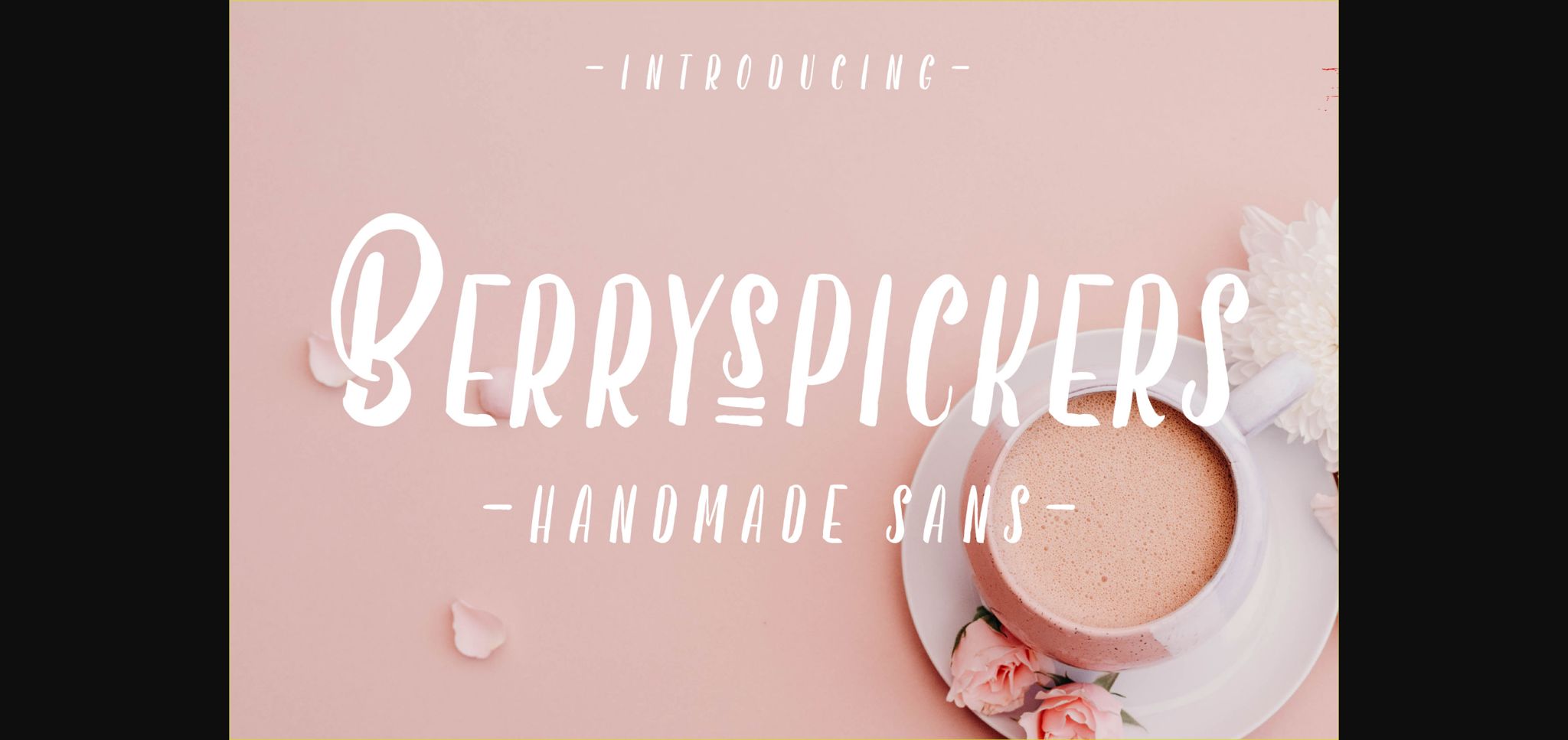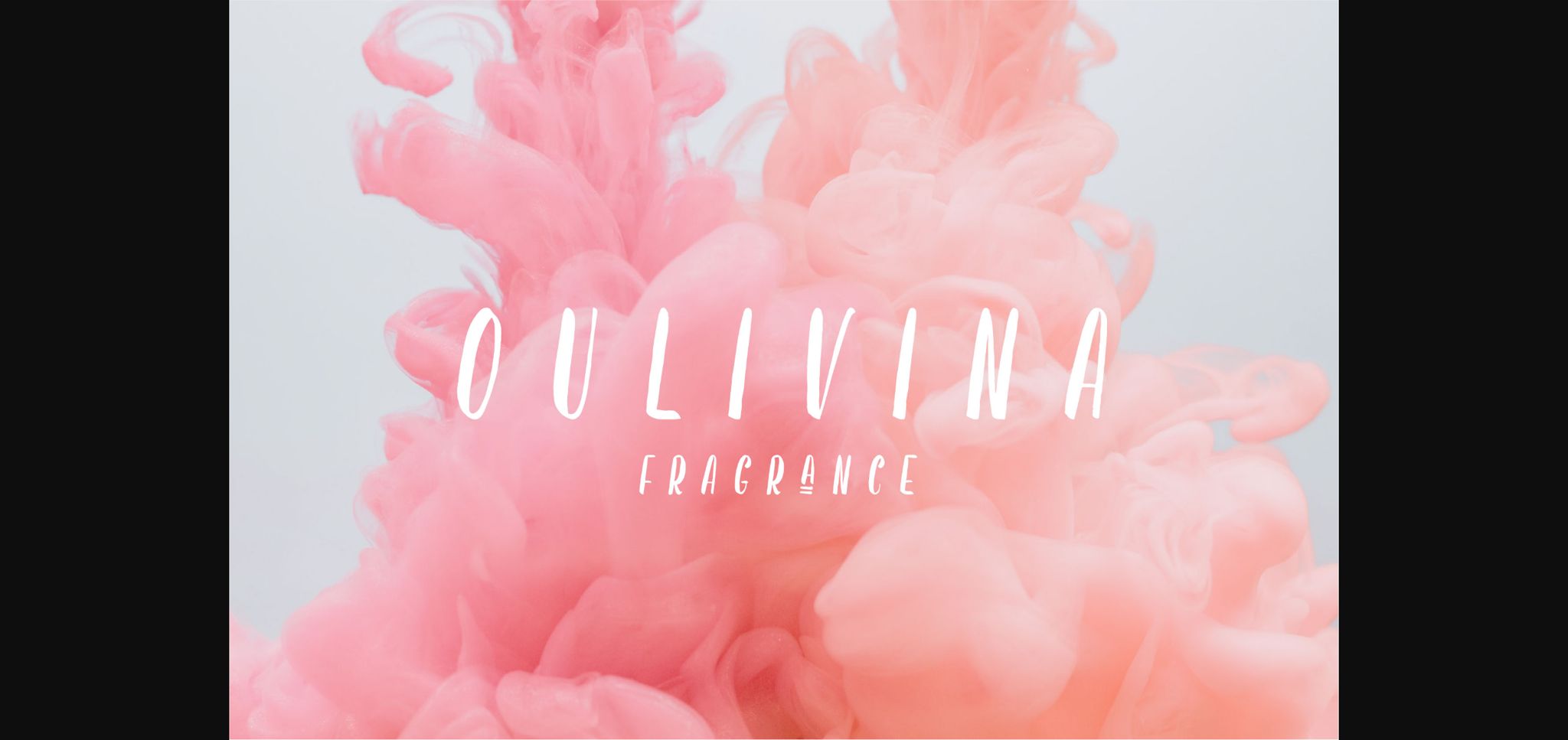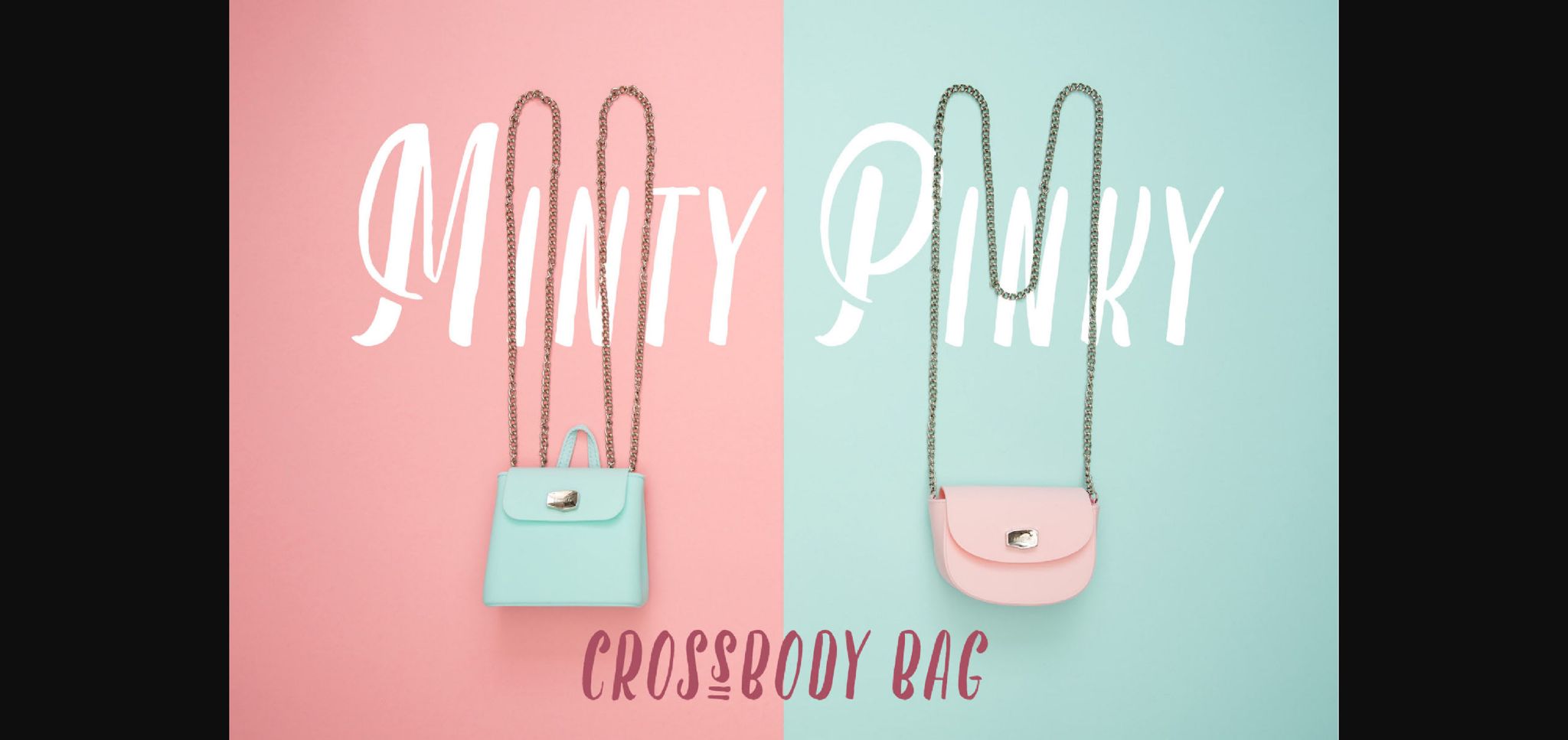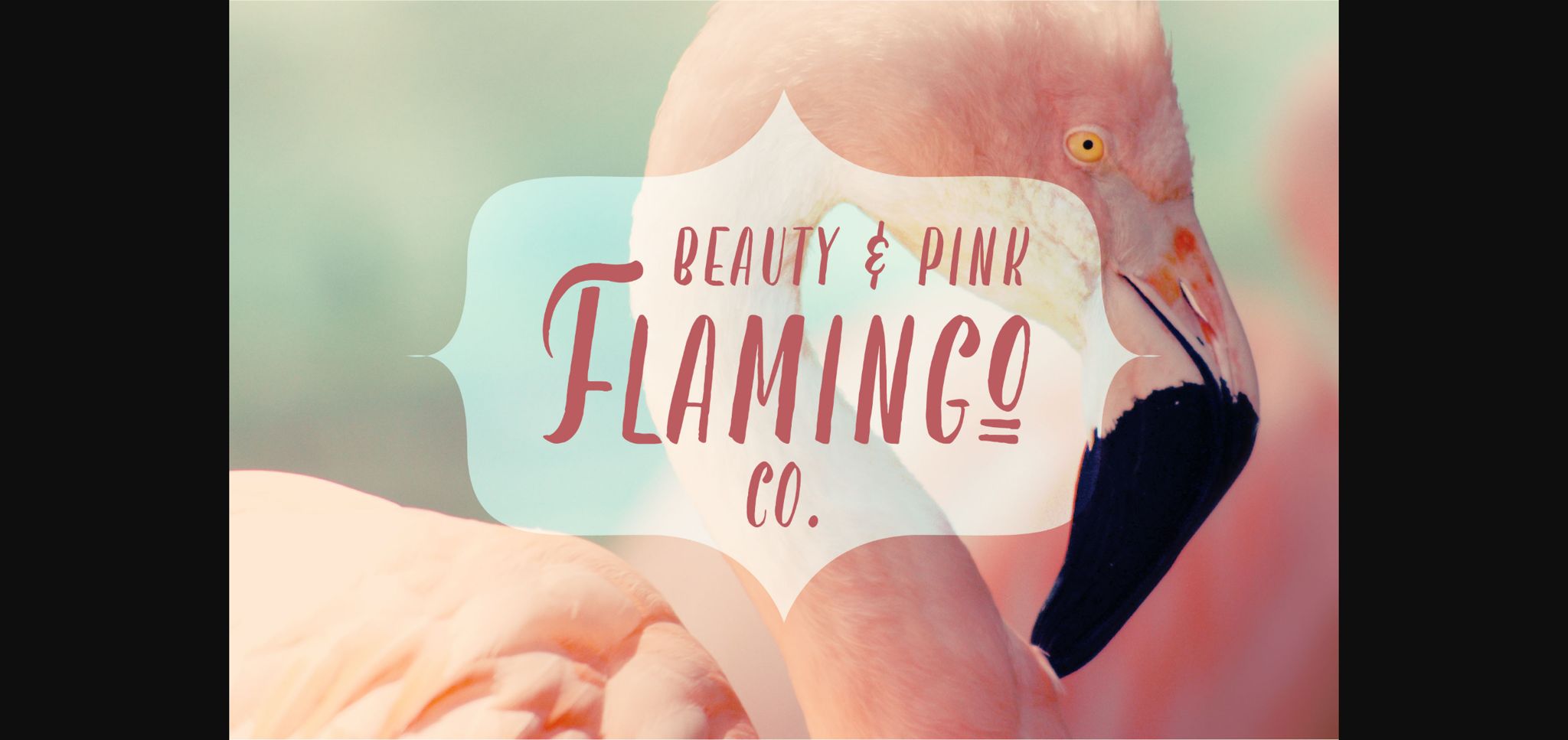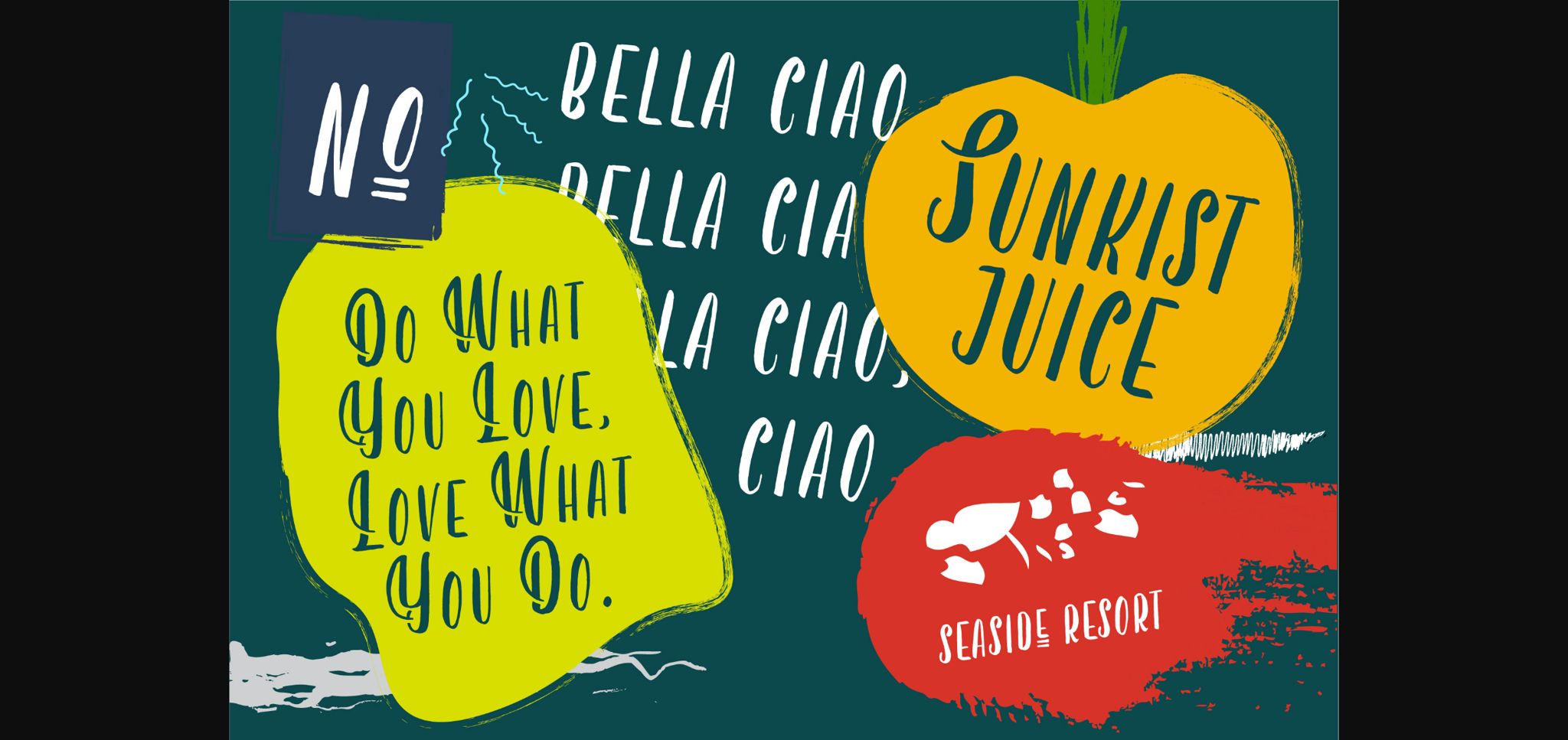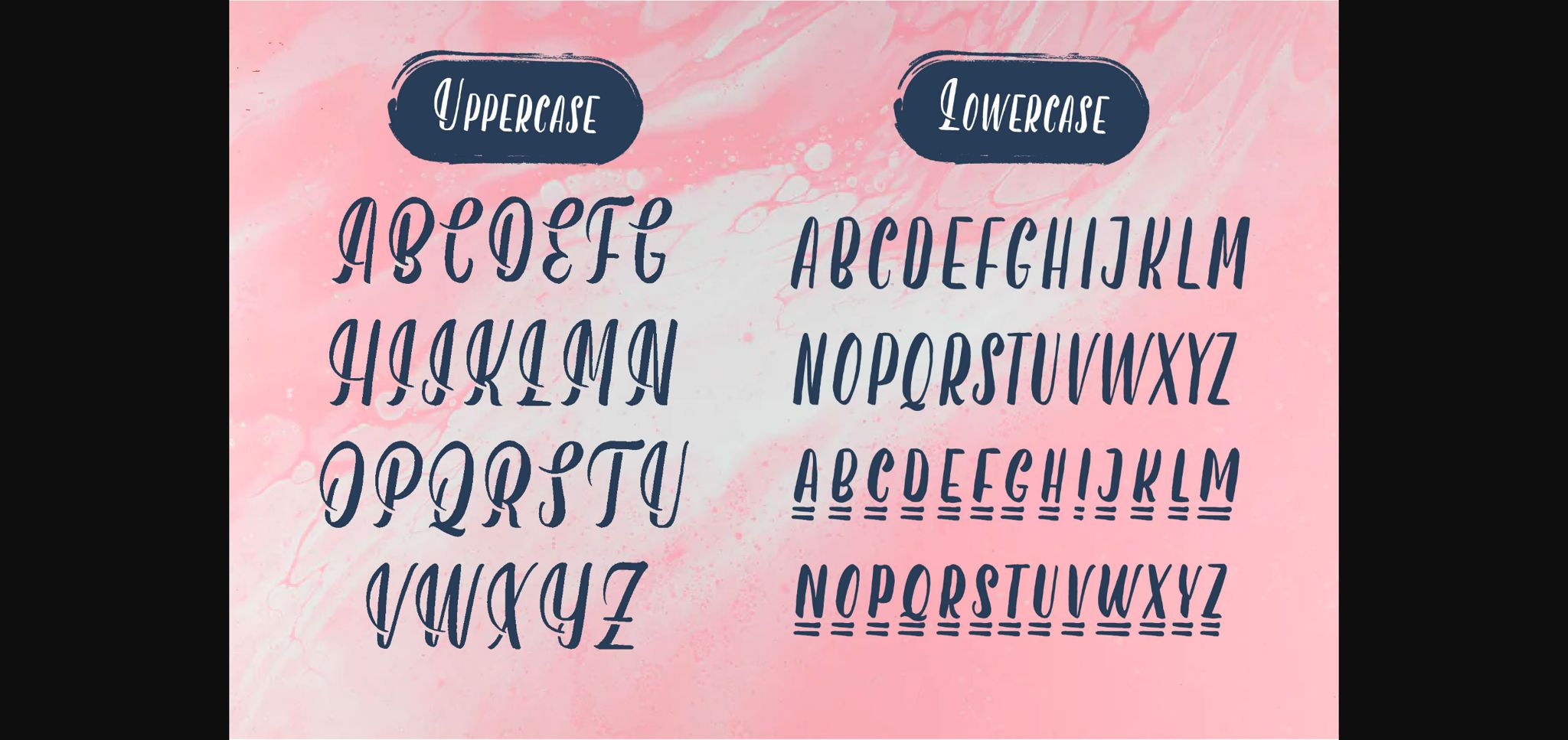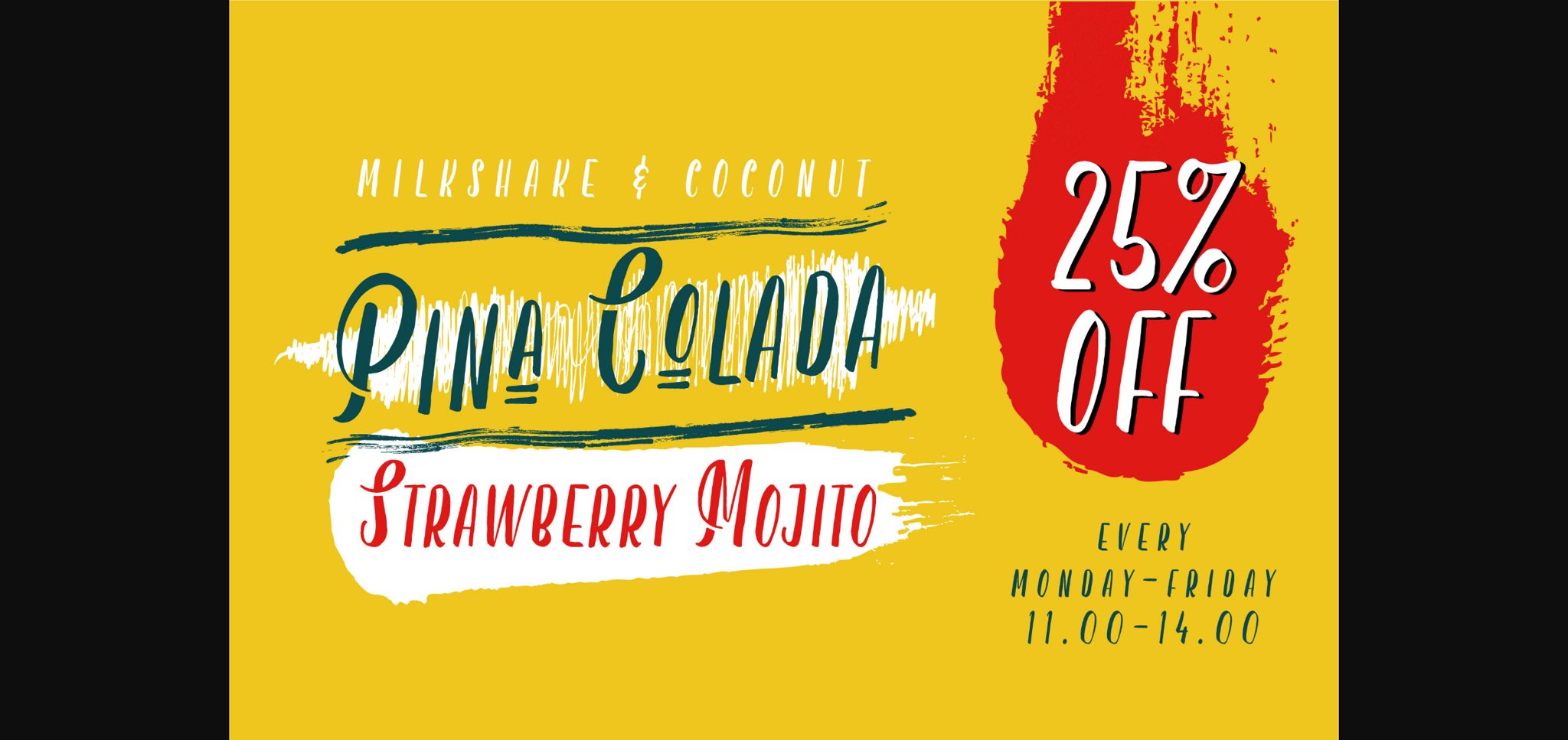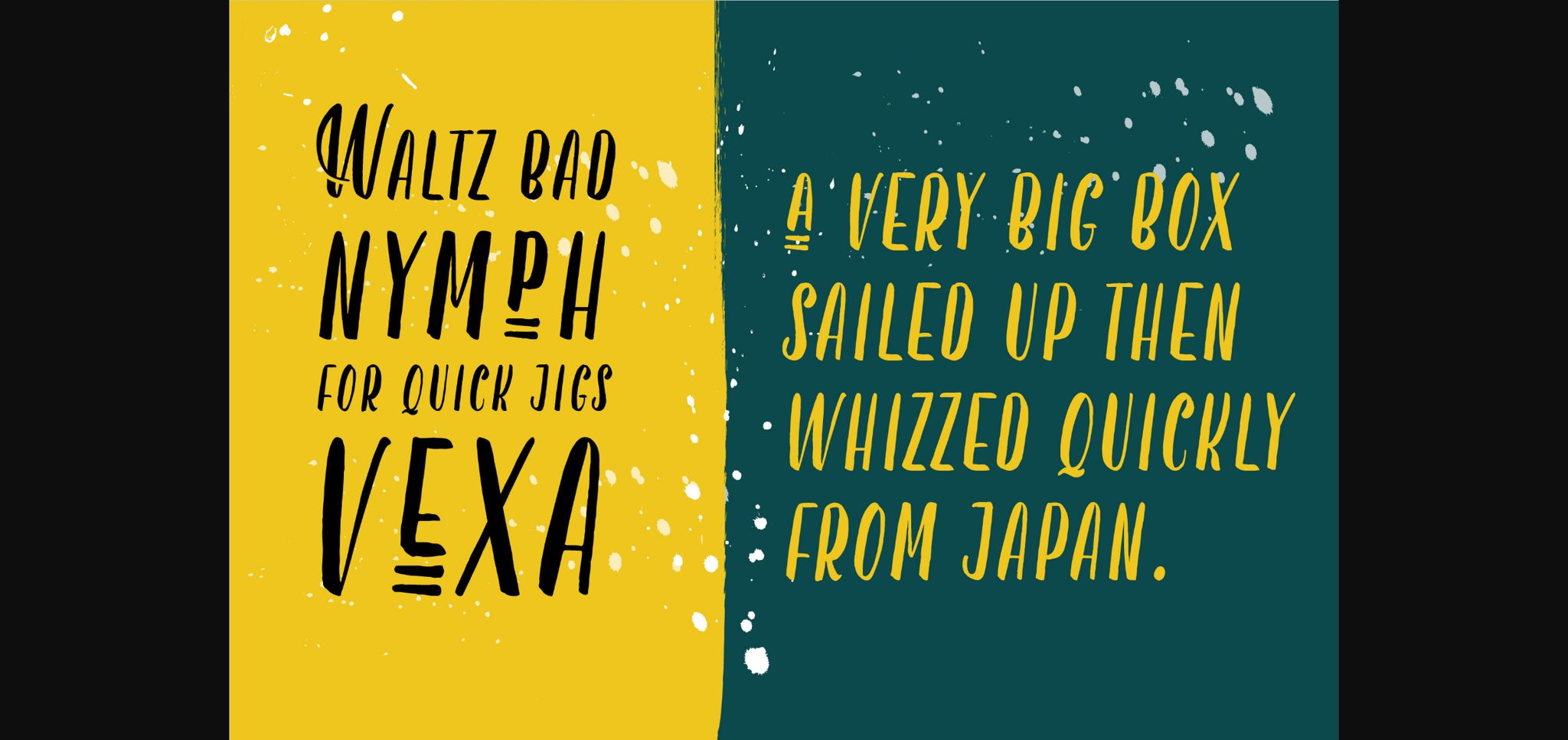
About Berryspickers Font
Berryspickers is an All Caps handwritten font. It was carefully handcrafted to become a true favorite. Its casual charm makes it appear wonderfully down-to-earth, readable and, ultimately, incredibly versatile. Berryspickers will look outstanding in any context, whether it’s being used on busy backgrounds or as a standalone headline!